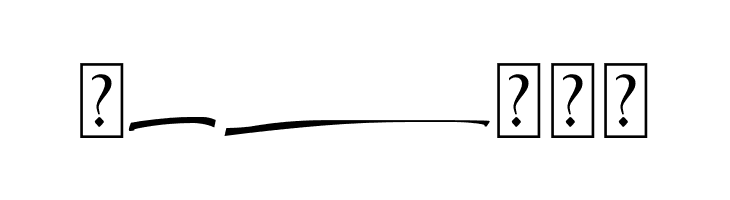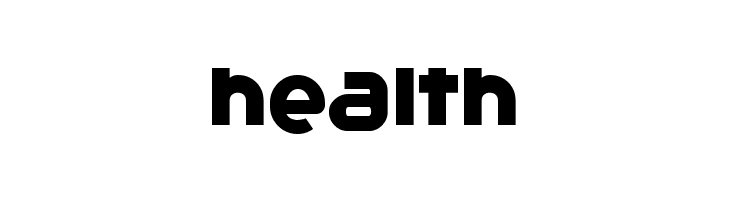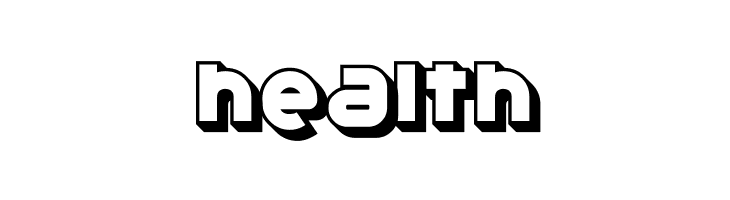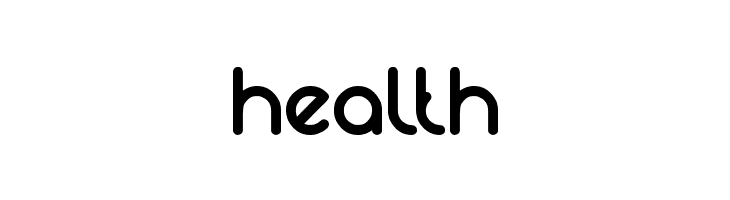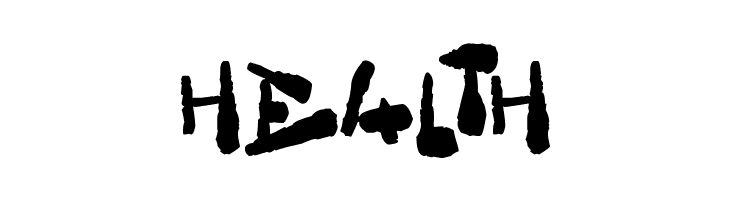
• Greatwriten Swash
• GreenSplash Regular
A bold, brush-style font with dynamic and expressive strokes.
• Gribal Regular Demo
• Gribal Shadow Demo
• Grids n Things 2
• Groovy Daisy
A playful, bold font with rounded, bubbly characters and a retro-modern style.
• Grounding
A whimsical and decorative font with elegant swirls and loops.
• Grungelings
A bold, grungy font with a hand-painted, textured look.
• Guardabosques
A bold, hand-drawn font with a rugged, textured style.
• GUITAR ACOUSTIC
A playful, rounded font with smooth curves and uniform stroke width.